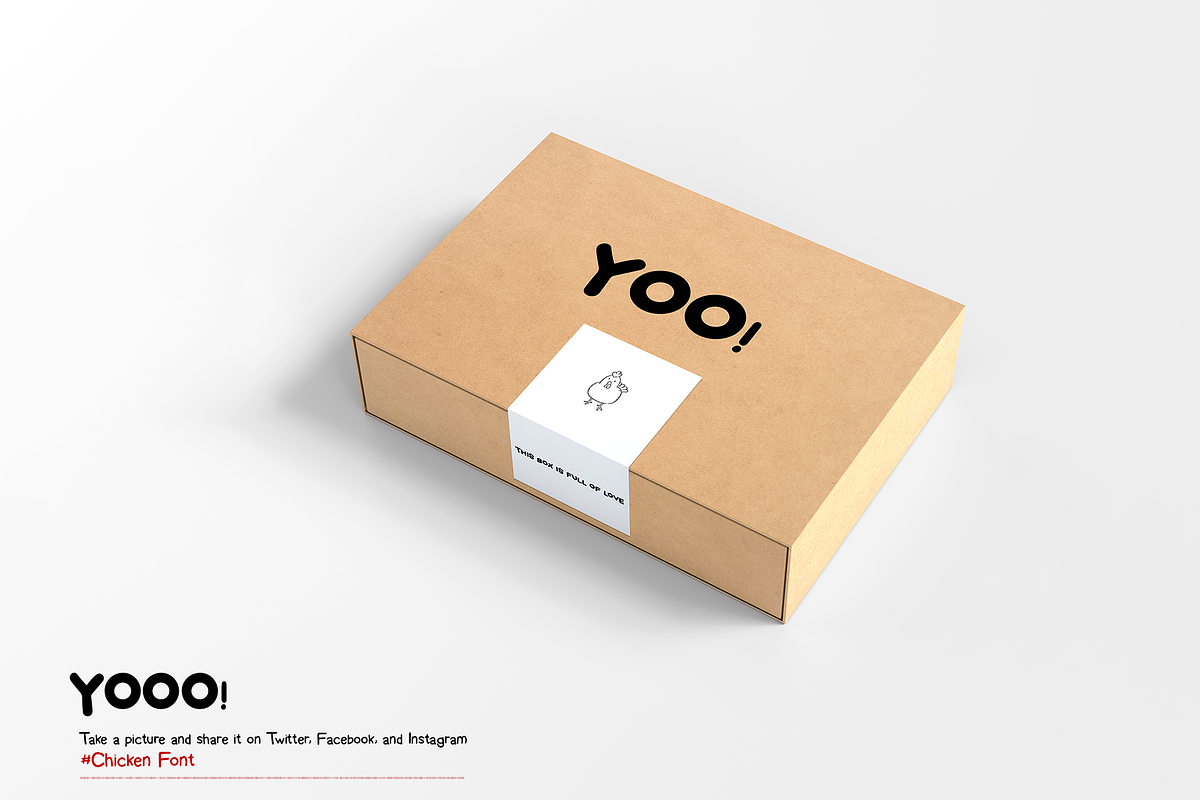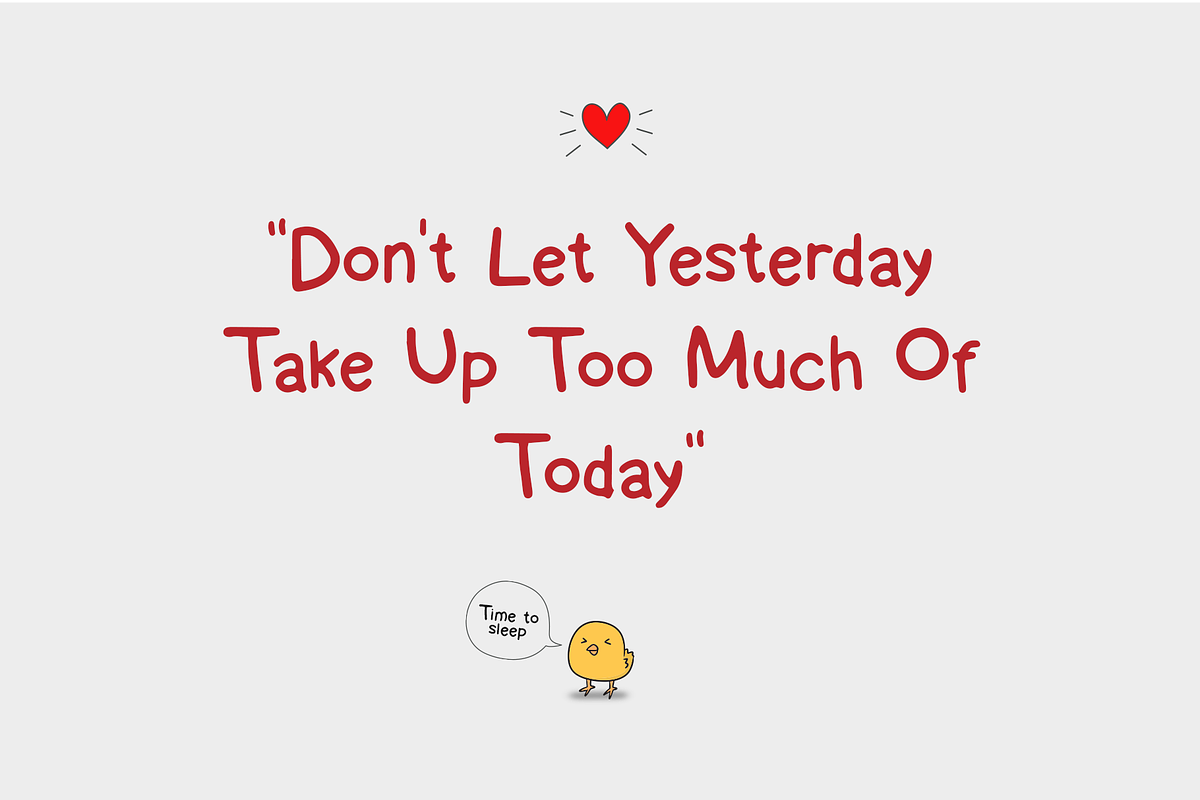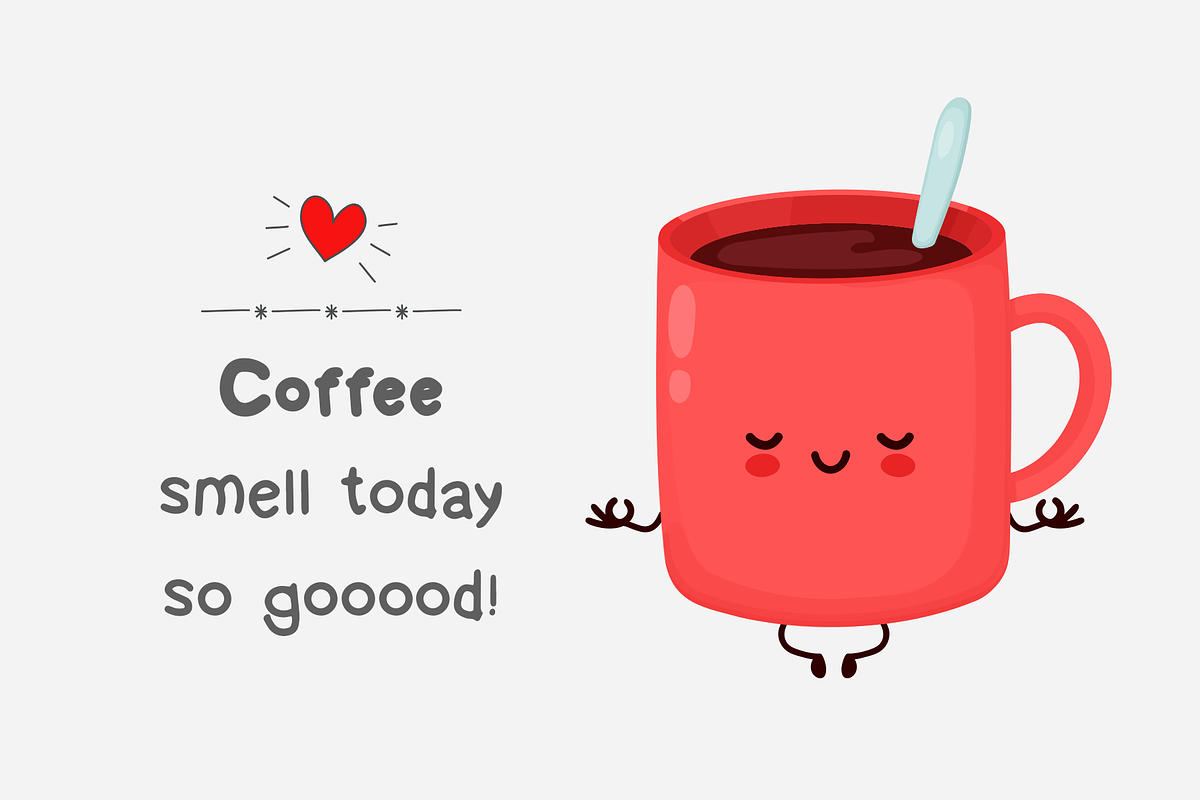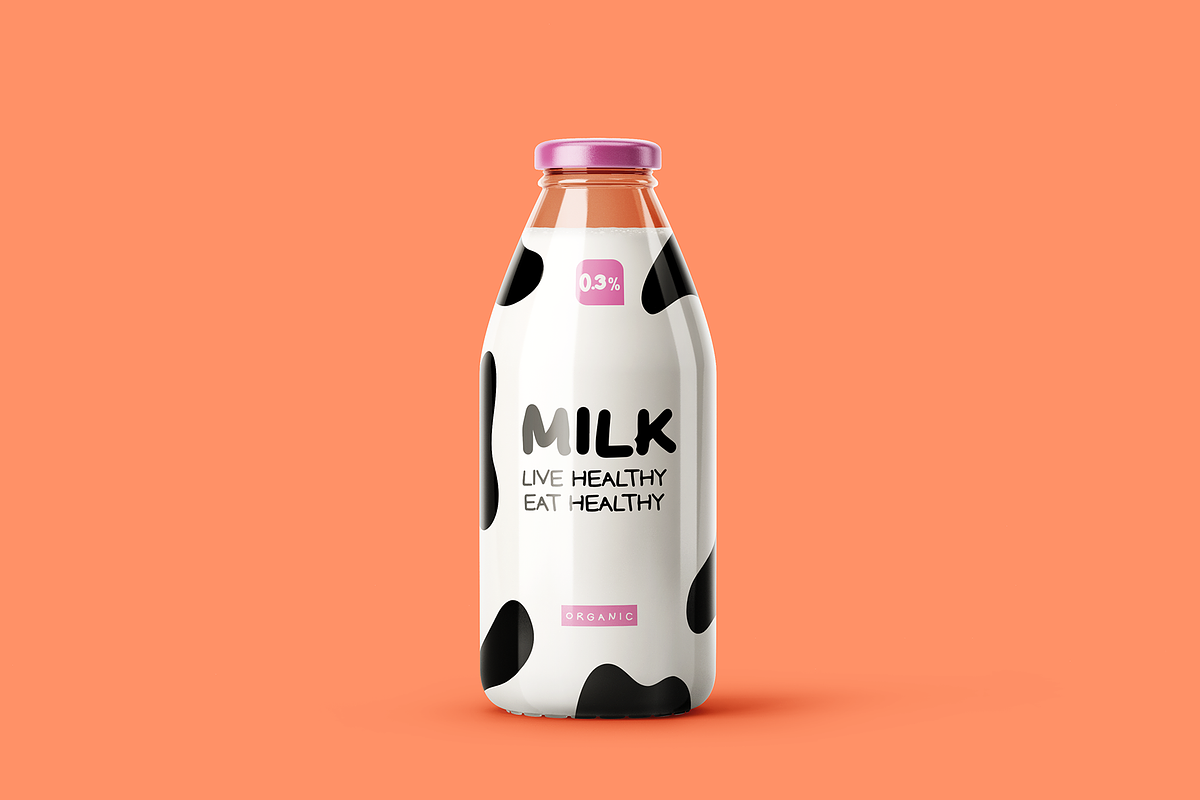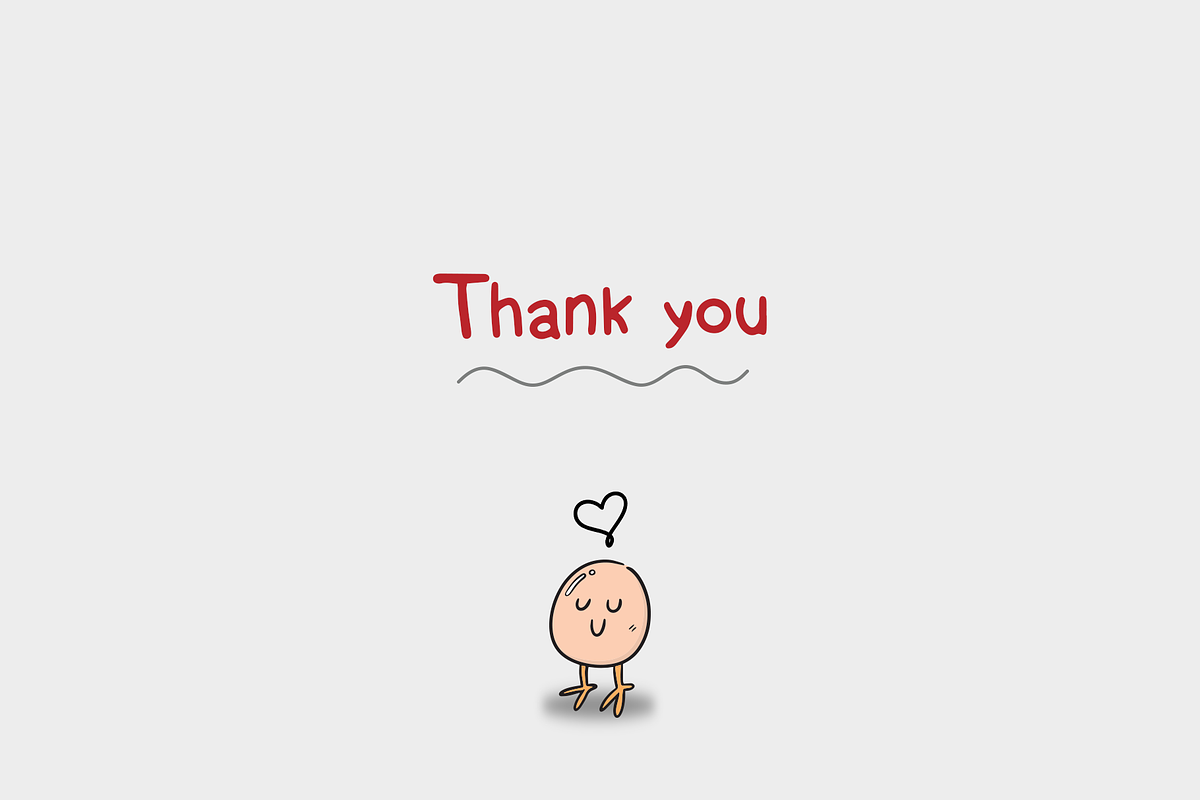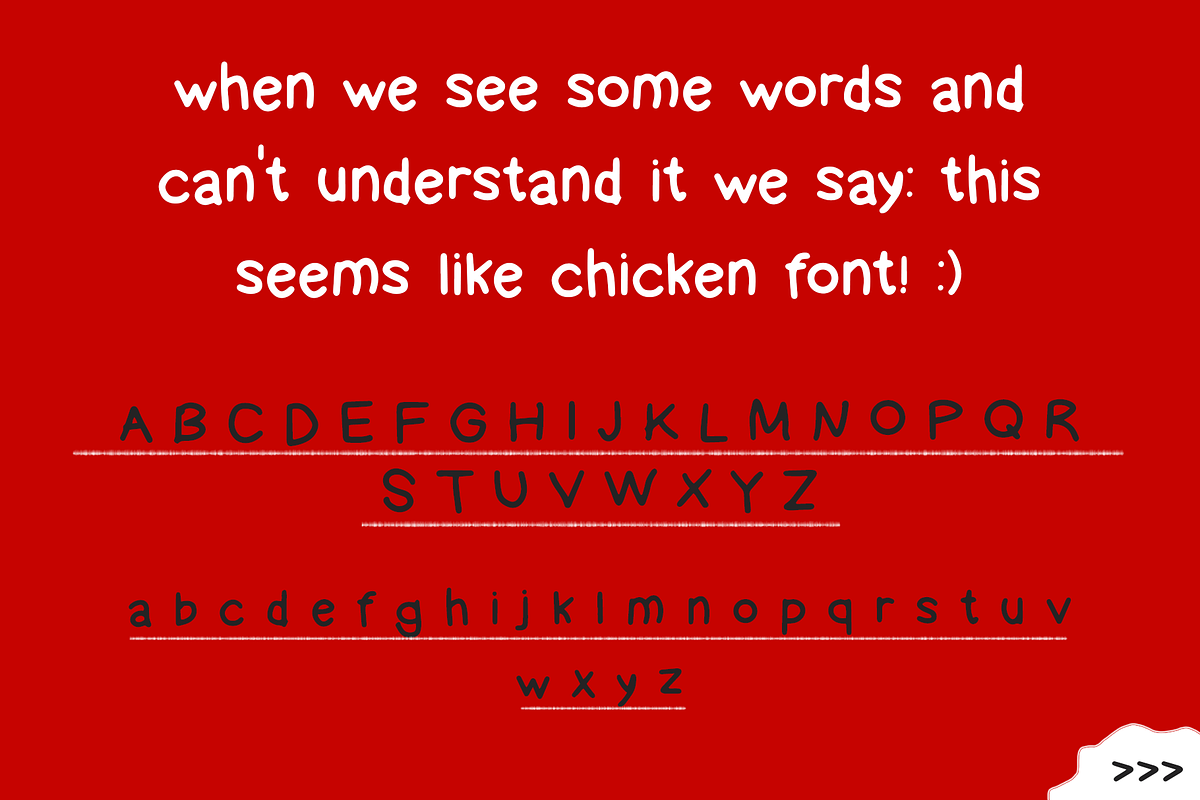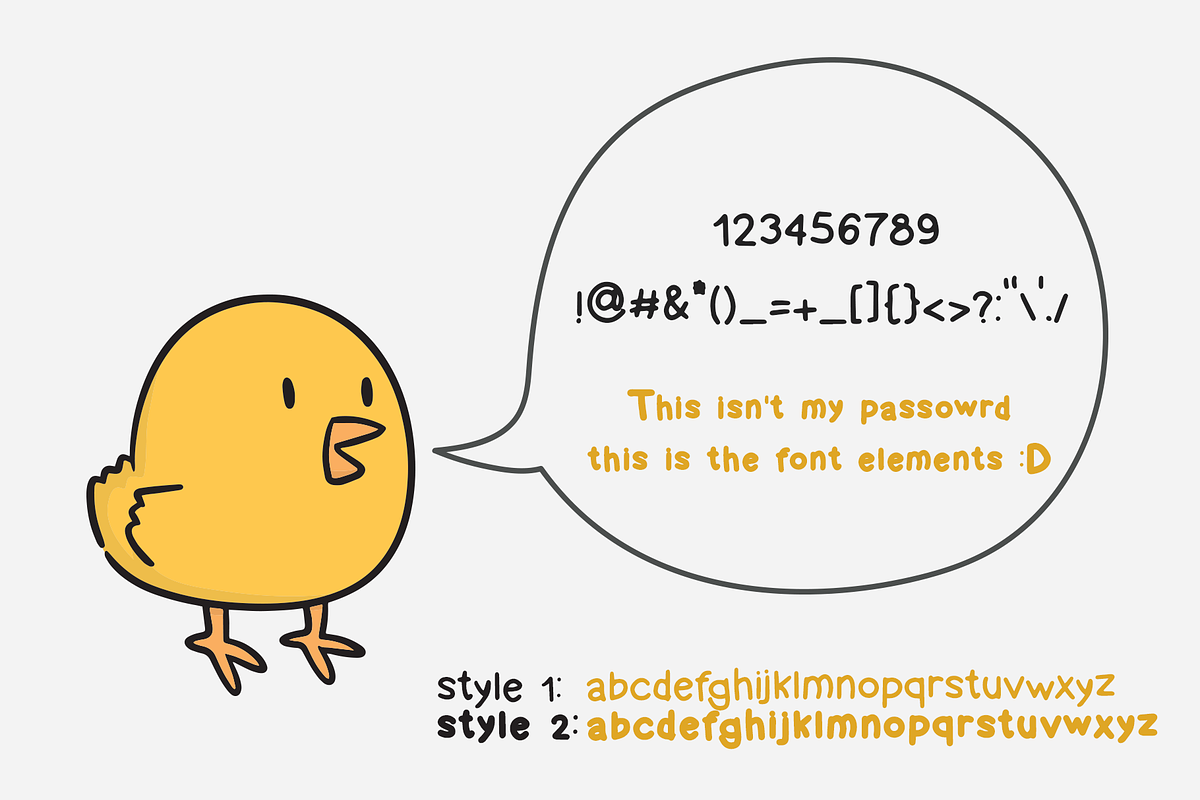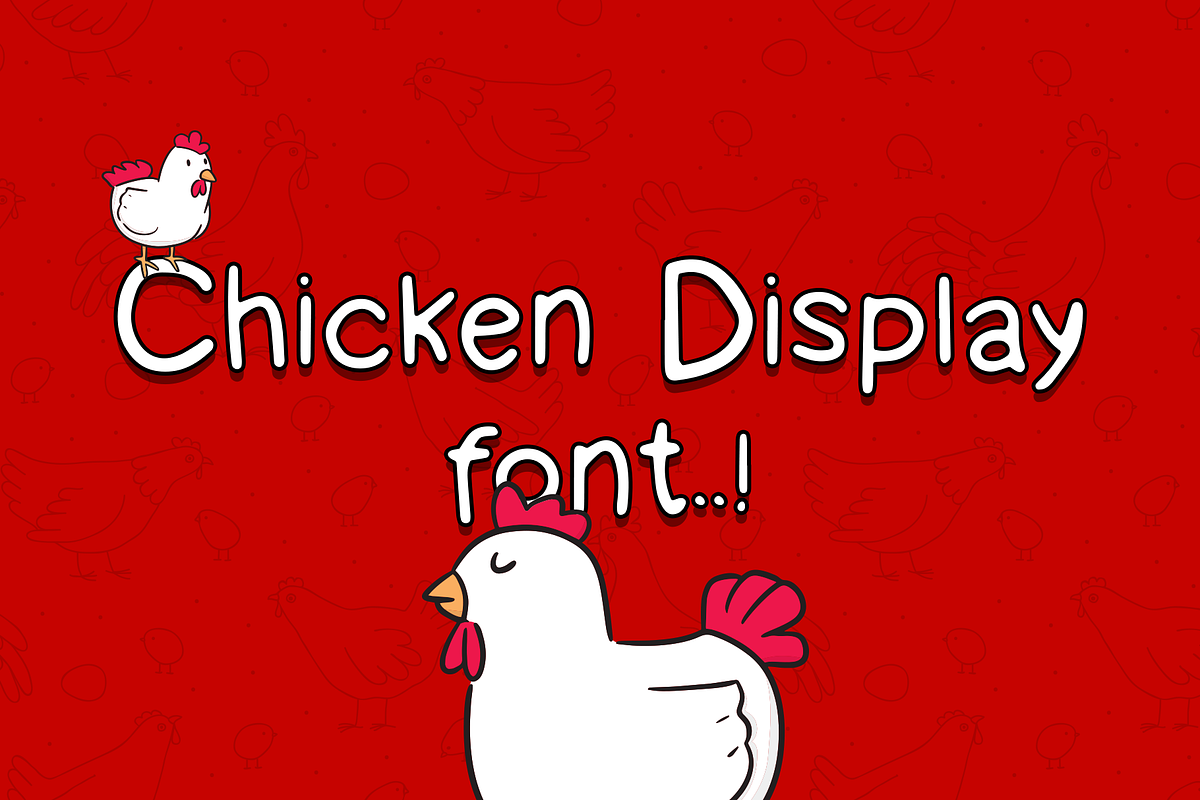
Chicken display font - Handwritten
When we see some words and can't understand it we say: This seems like chickenfont! I made this font inspired by chickens and their footprints.
- You will get 2 styles of font which will help you to make a creative and fun design project. If you're looking to grab eyeballs with an ad campaign, a logo design, apparel, printed stationery, and all that other good stuff, then get chicken font!